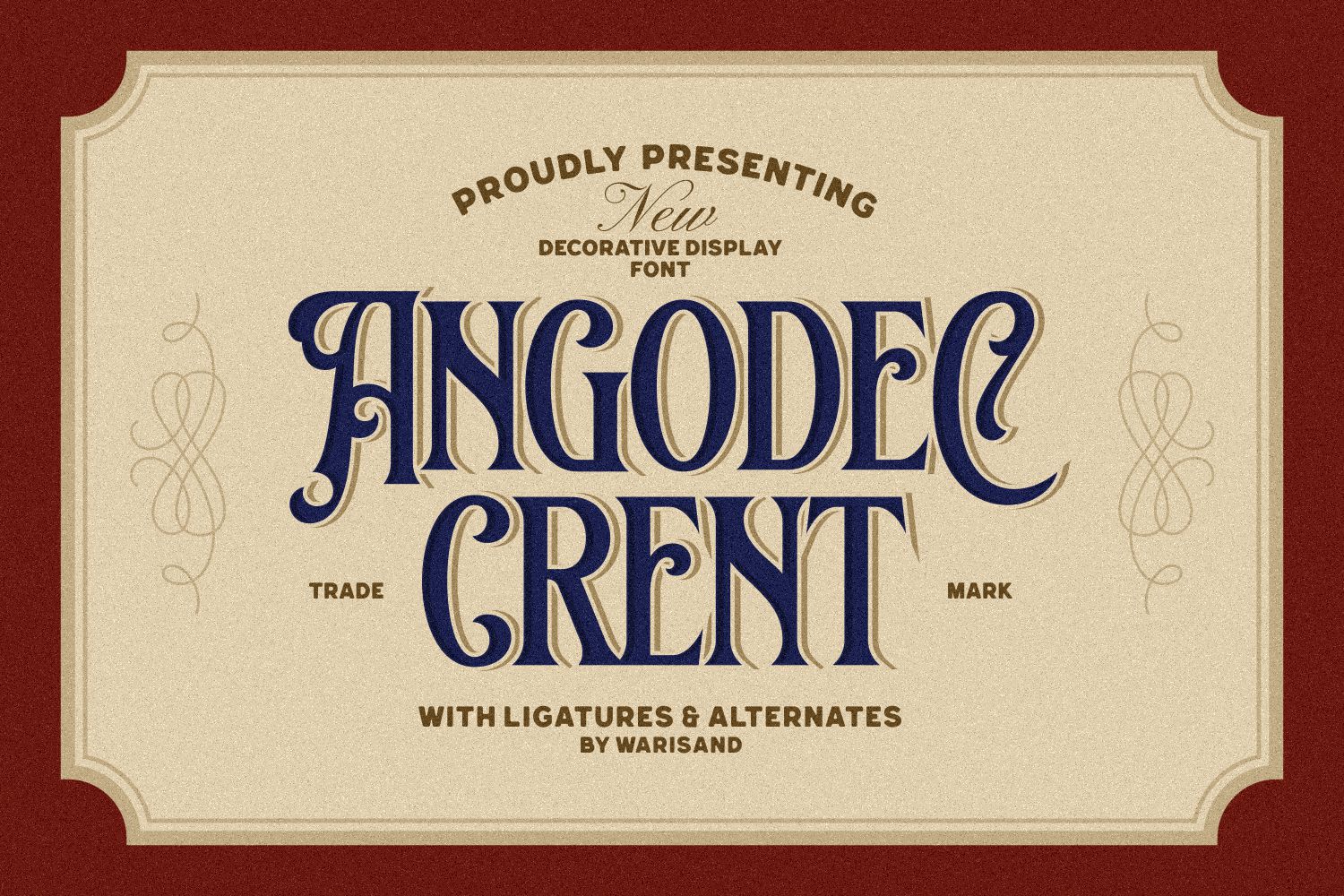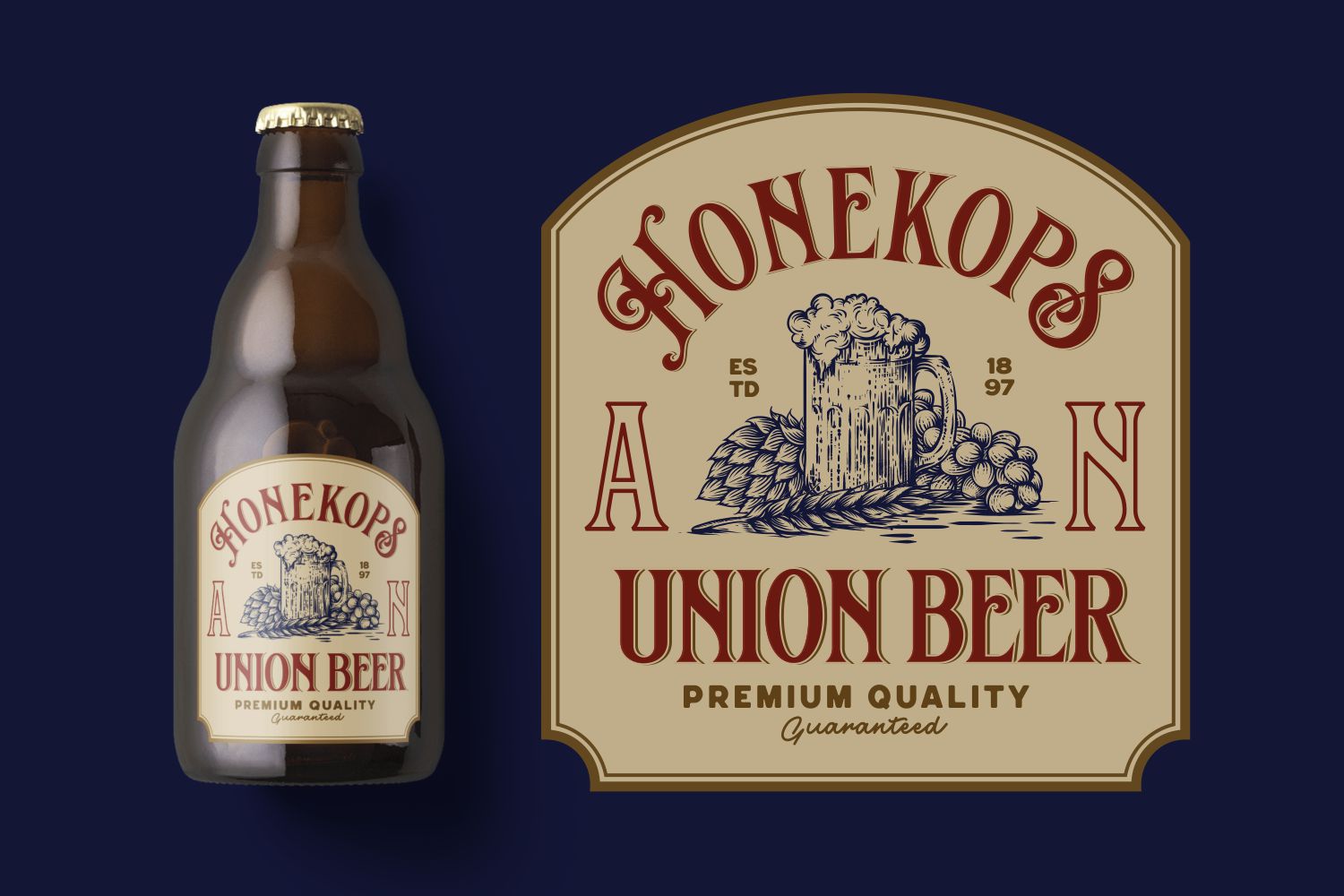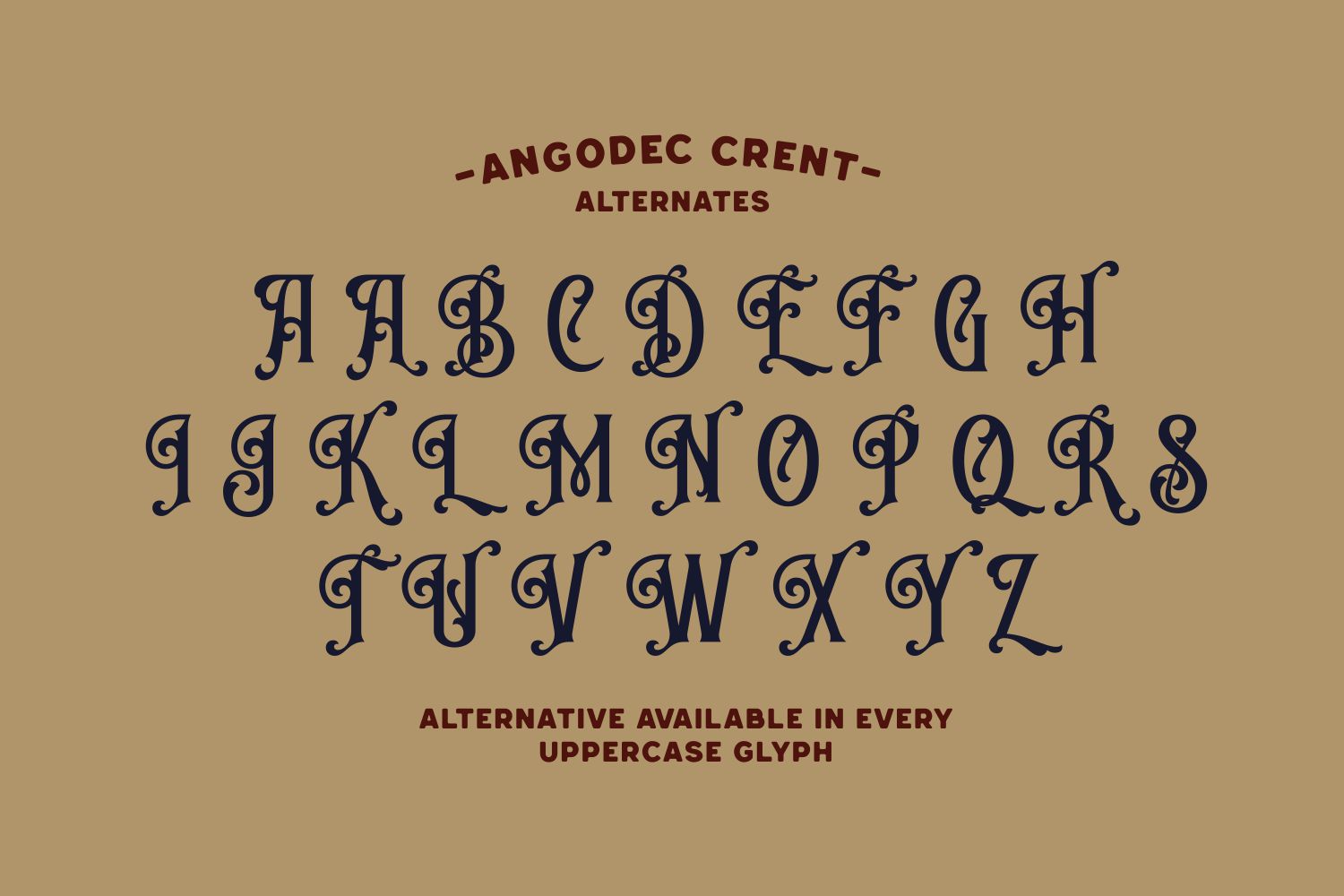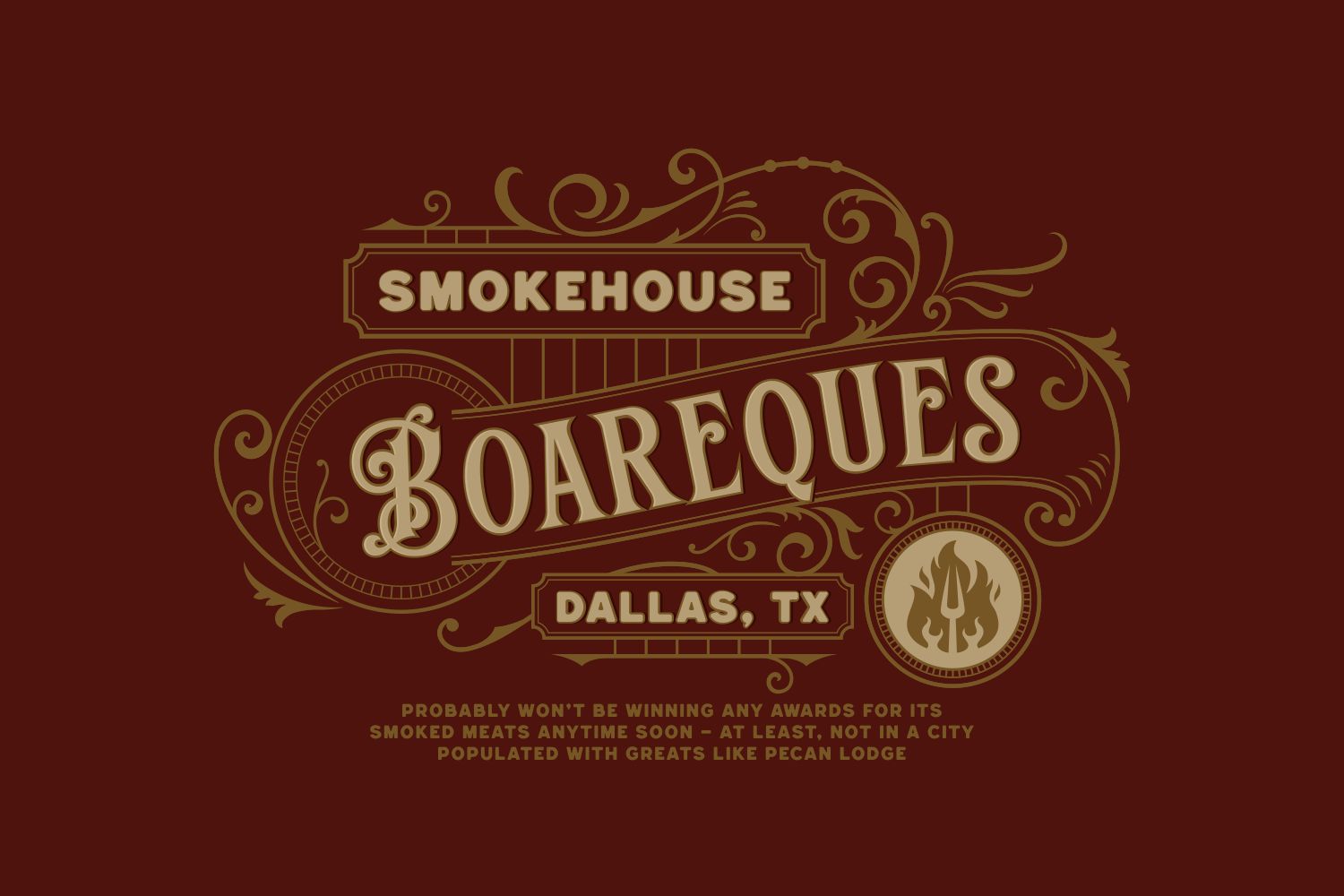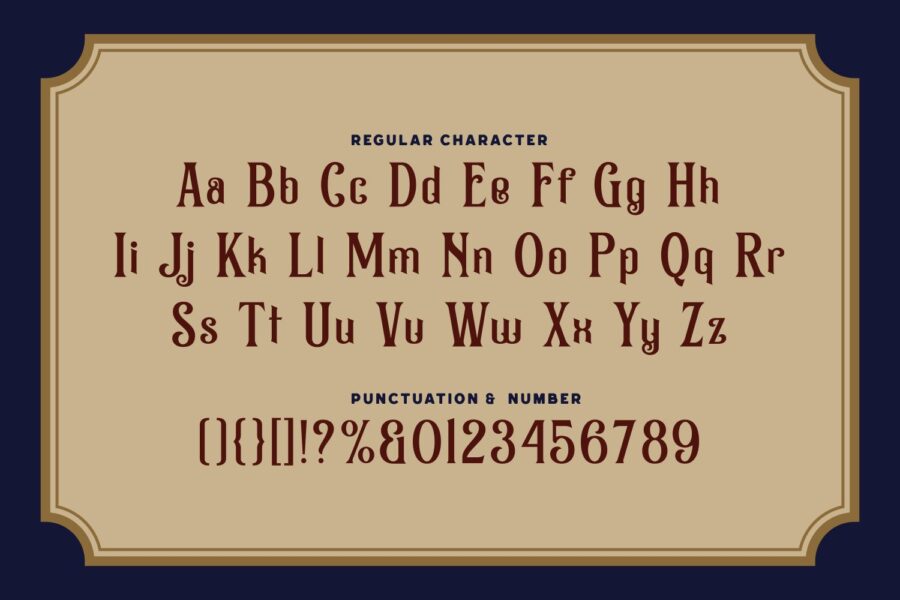
Angodec Crent
Angodec Crent is a decorative display font that fuses classical elegance with bold statement design. With its high-contrast strokes, ornate terminals, and vintage-inspired structure, this font brings a sophisticated charm perfect for high-end labels, logos, and editorial titles. Each uppercase letter comes with a stylish alternate, giving you flexible typographic options for unique and dramatic layouts.
Whether you’re crafting a beer label, vintage signage, or branding for artisanal products, Angodec Crent delivers timeless appeal. Equipped with ligatures, stylistic alternates, numbers, and punctuation, this font is ideal for designers who want to evoke a sense of authenticity and old-world luxury in their work.